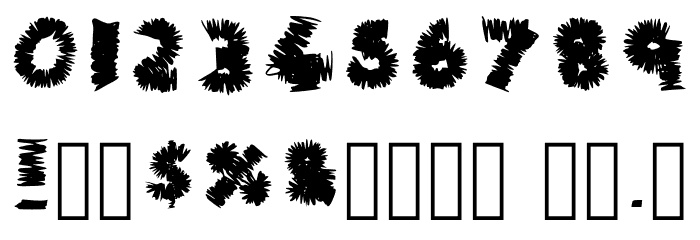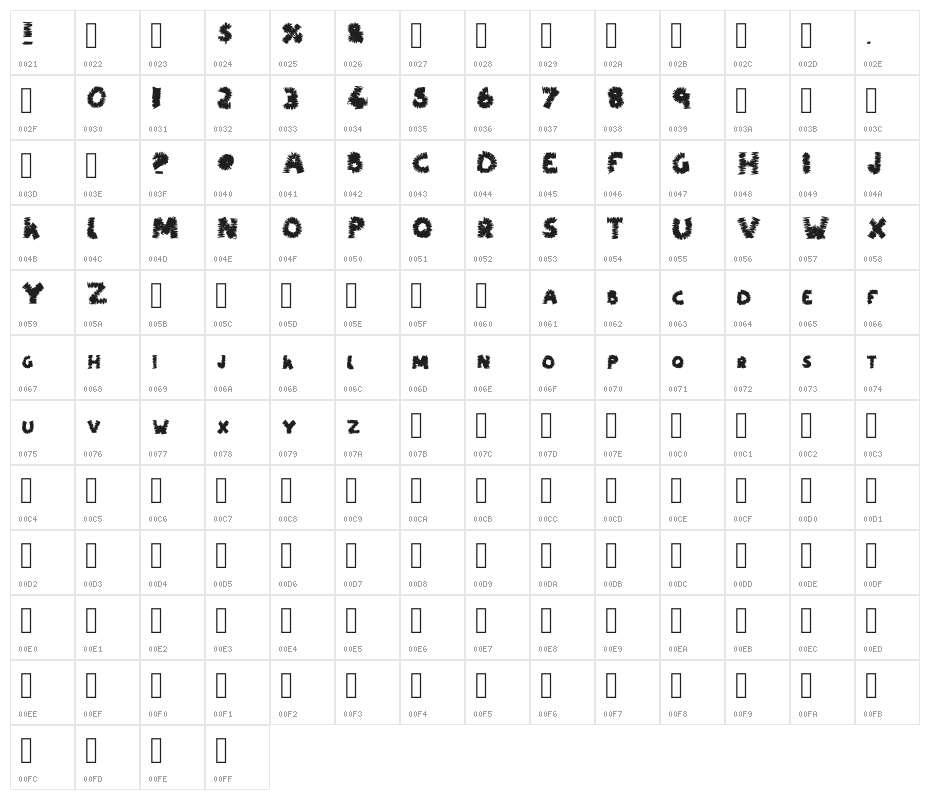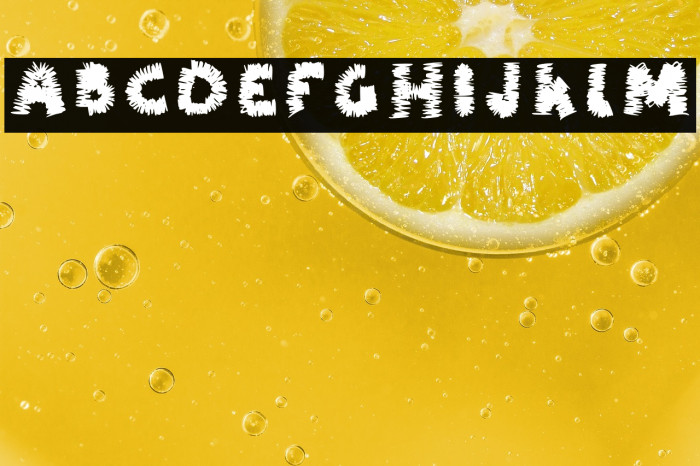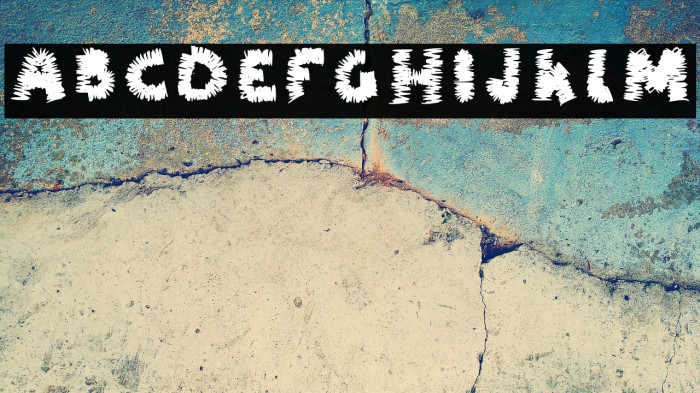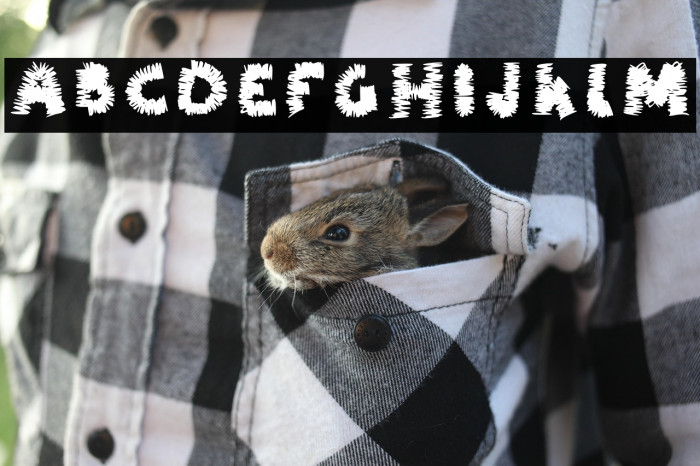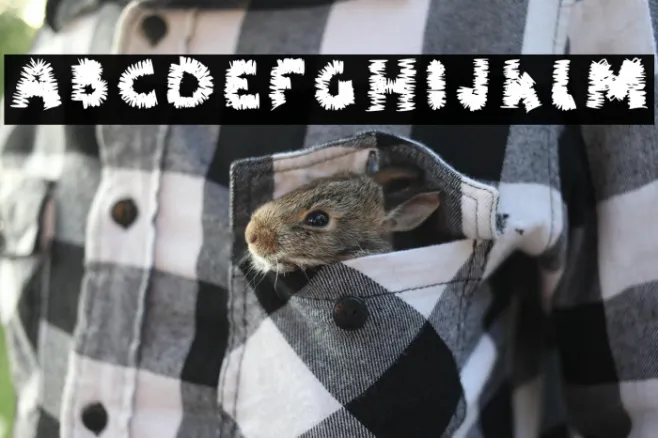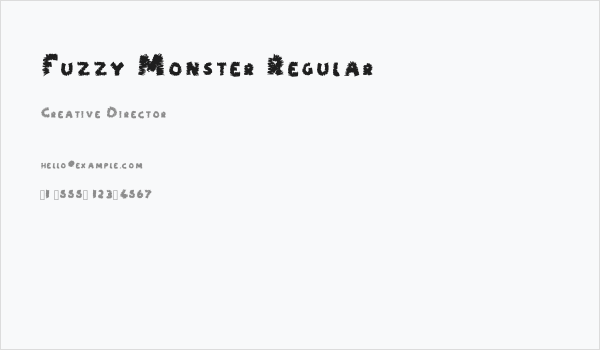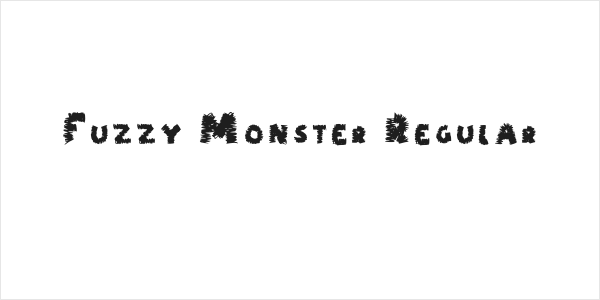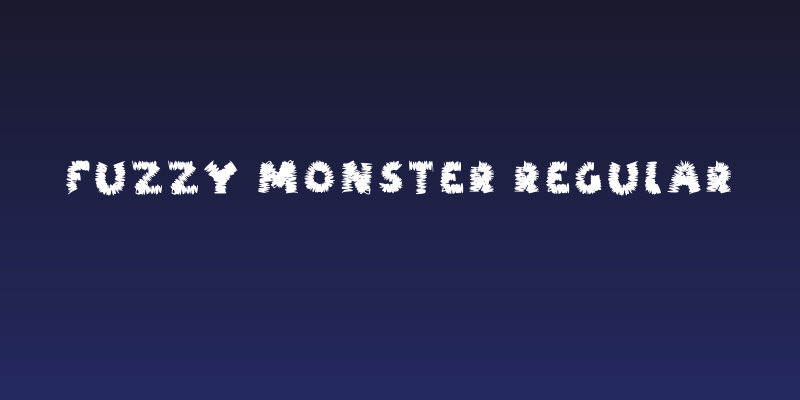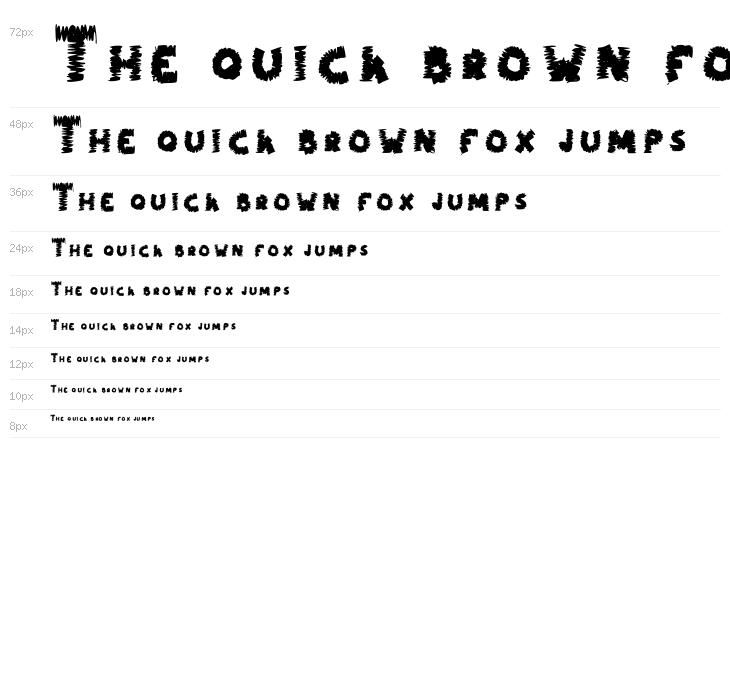
Fuzzy Monster Regular Font
Fuzzy Monster Regular Description
This font features a playful and chaotic design, with each character appearing as if it's made from a burst of fuzzy, jagged edges. The letters are bold and impactful, creating a sense of movement and energy. The irregular outlines give it a monstrous, wild aesthetic, making it ideal for creative and unconventional projects. The uppercase and lowercase letters maintain this dynamic style, while the numbers and special characters follow suit with the same energetic flair. This font is perfect for grabbing attention and adding a unique touch to any design.
| Proposed Projects | Ideal for Halloween-themed designs, children's book covers, playful posters, and eye-catching advertisements. |